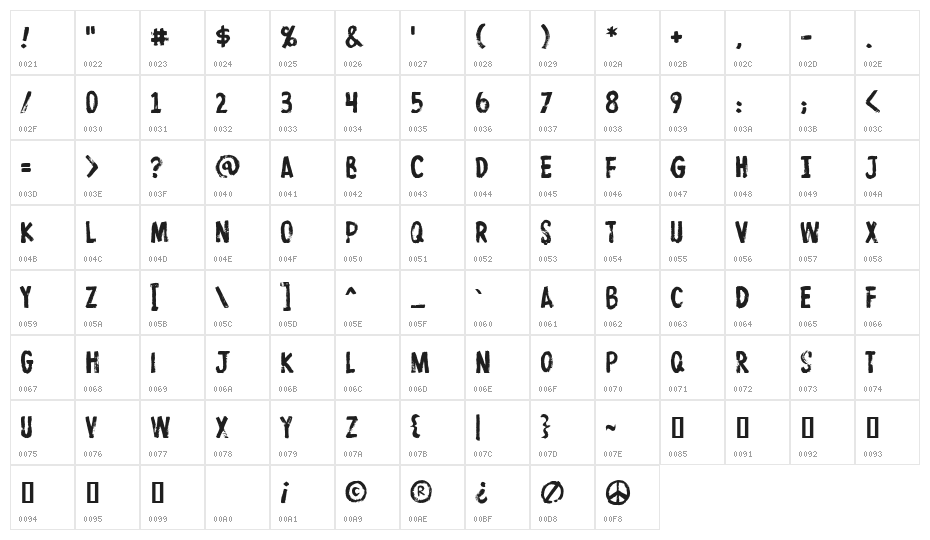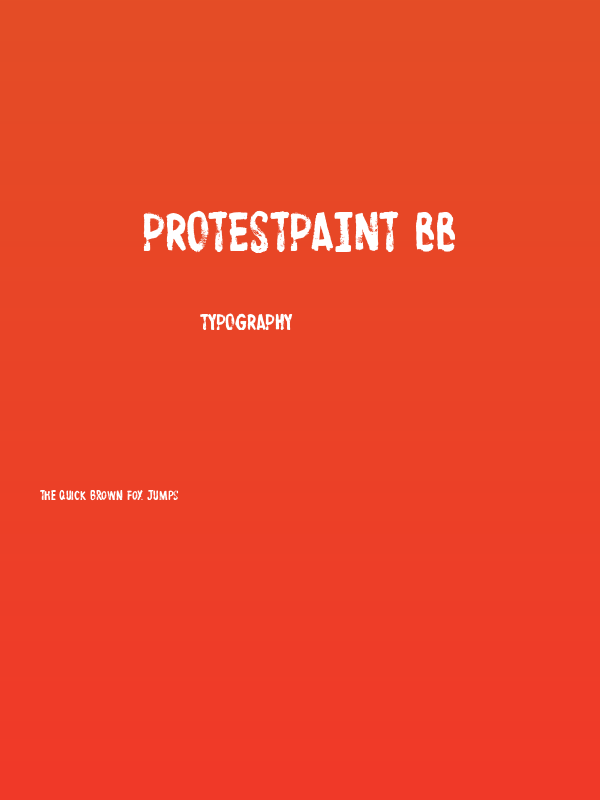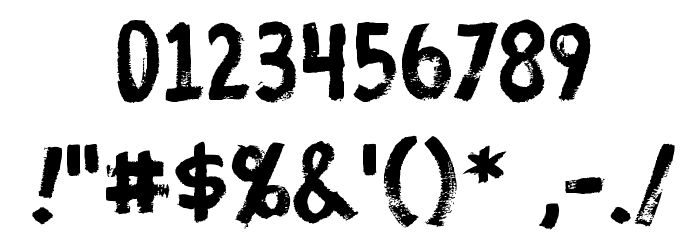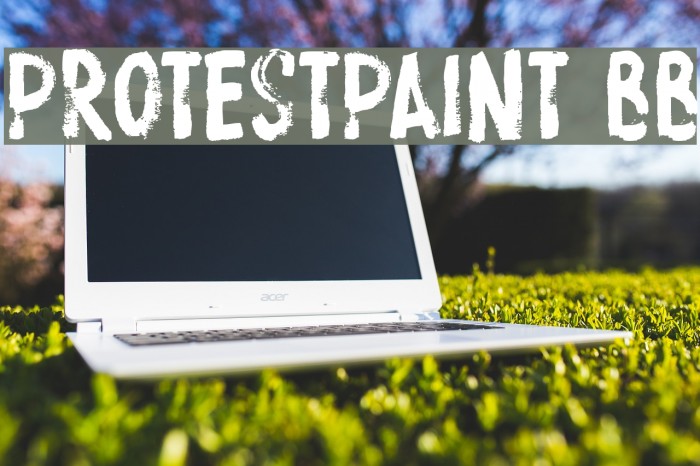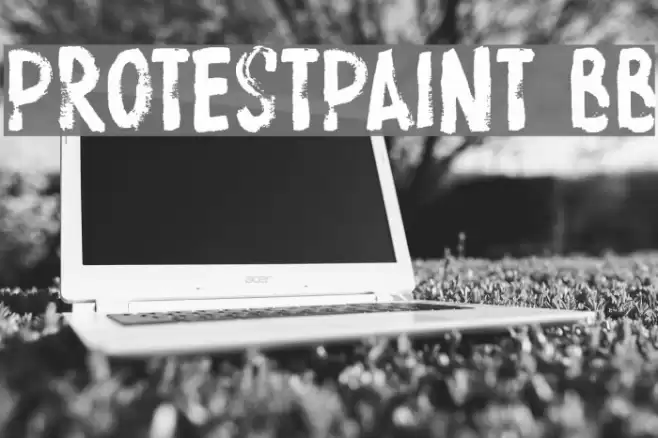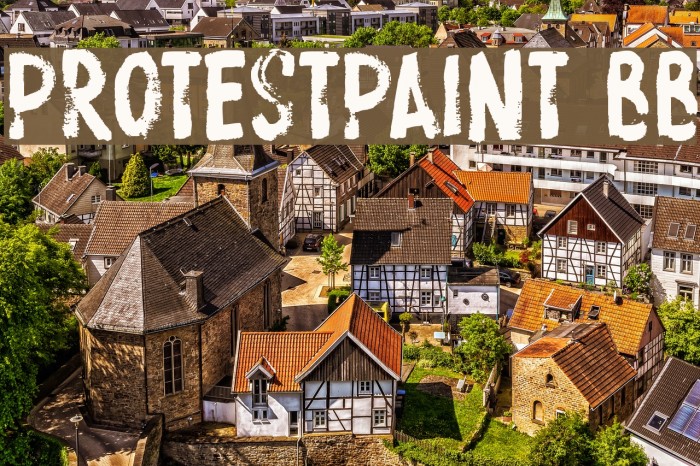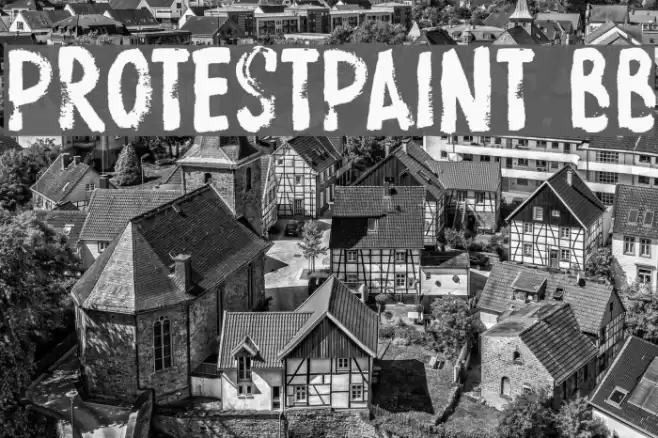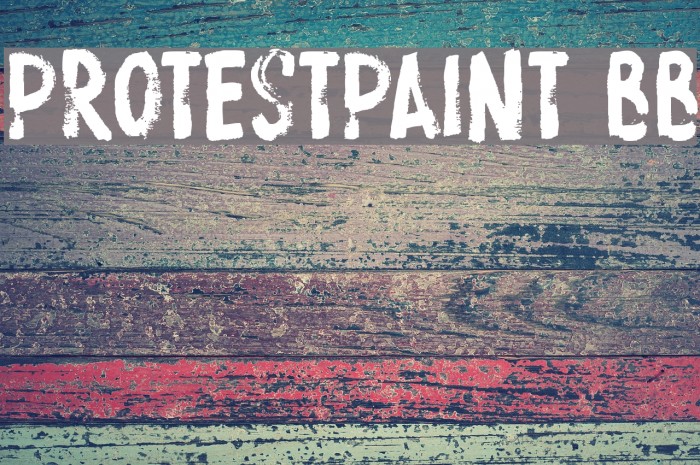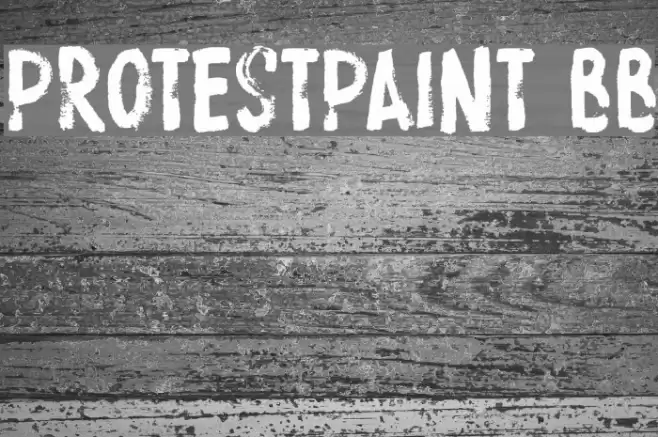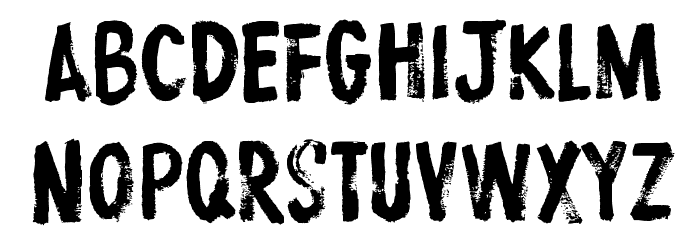
ProtestPaint BB Font
ProtestPaint BB Description
This font features a bold, expressive style with a hand-painted appearance. The characters have a rough, textured edge that mimics the look of brush strokes, giving it an energetic and rebellious feel. The uppercase and lowercase letters maintain a consistent weight, while the numbers and special characters follow the same artistic theme. Its design is reminiscent of street art or protest signs, making it ideal for projects that require a bold statement. The font's unique style captures attention and conveys a sense of urgency and dynamism.
| Overall Style | Modern, Artistic |
| Use Case | Headlines, Posters, Logos |
| Proposed Projects | Ideal for protest posters, street art designs, album covers, and any project needing a bold, expressive statement. |